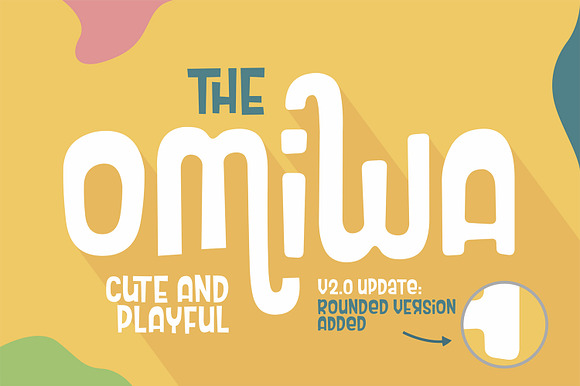
Omiwa V2.0 Cute Playful Font
Omiwa V2.0 Cute Playful Font by Orenari is a font selected for branding, posters, packaging, typography.
Why Omiwa V2.0 Cute Playful Font is worth a look
Omiwa V2.0 Cute Playful Font by Orenari fits naturally into Branding, posters, packaging, typography.